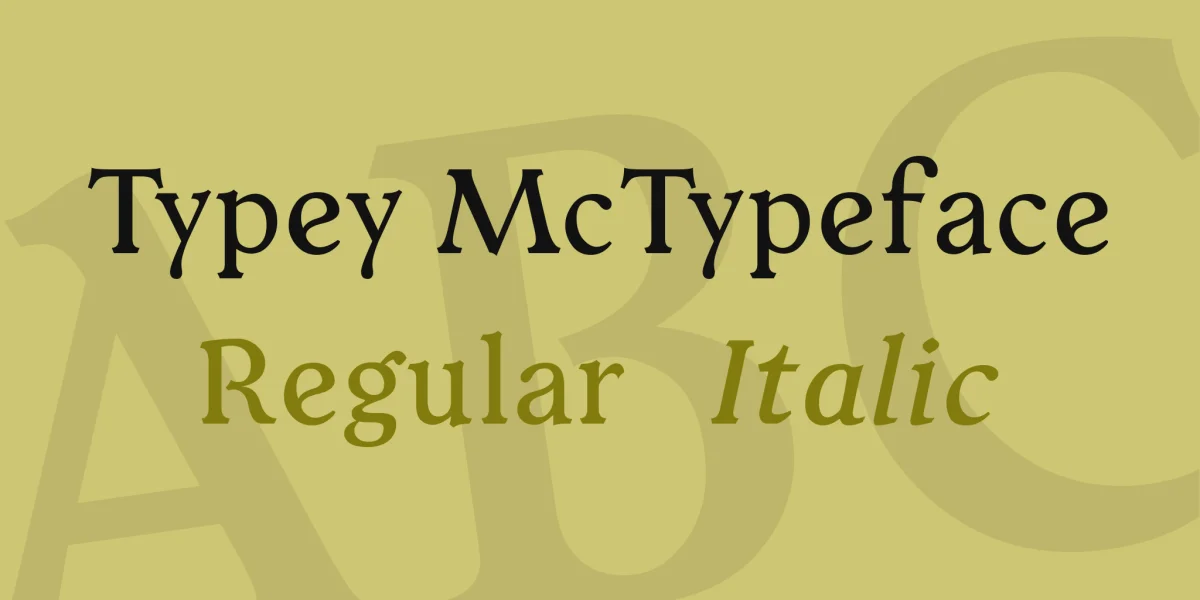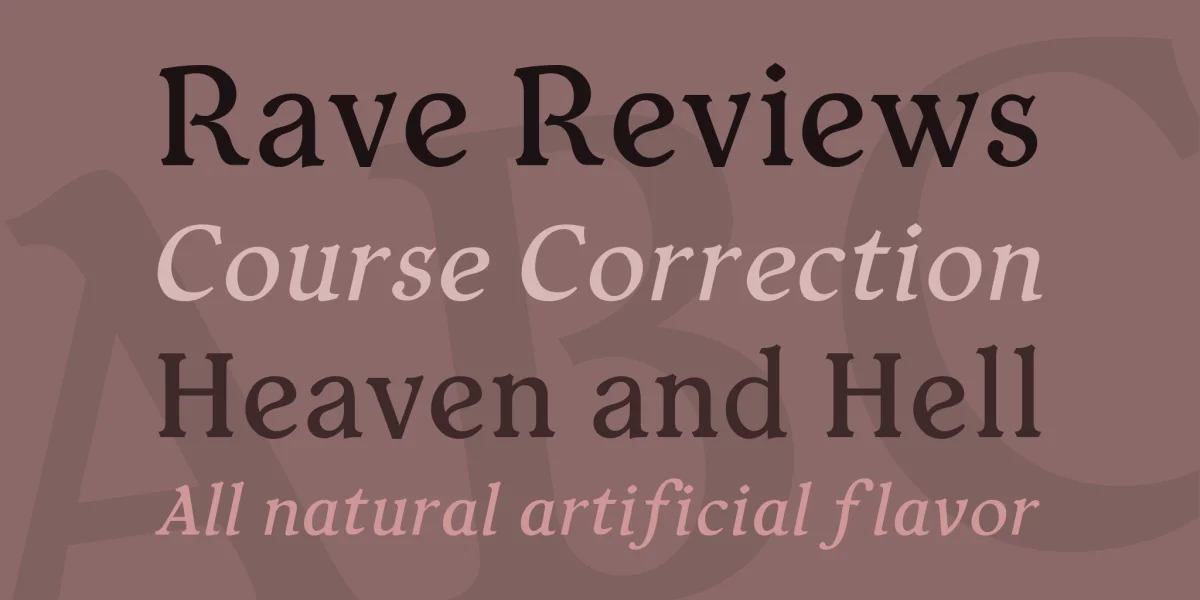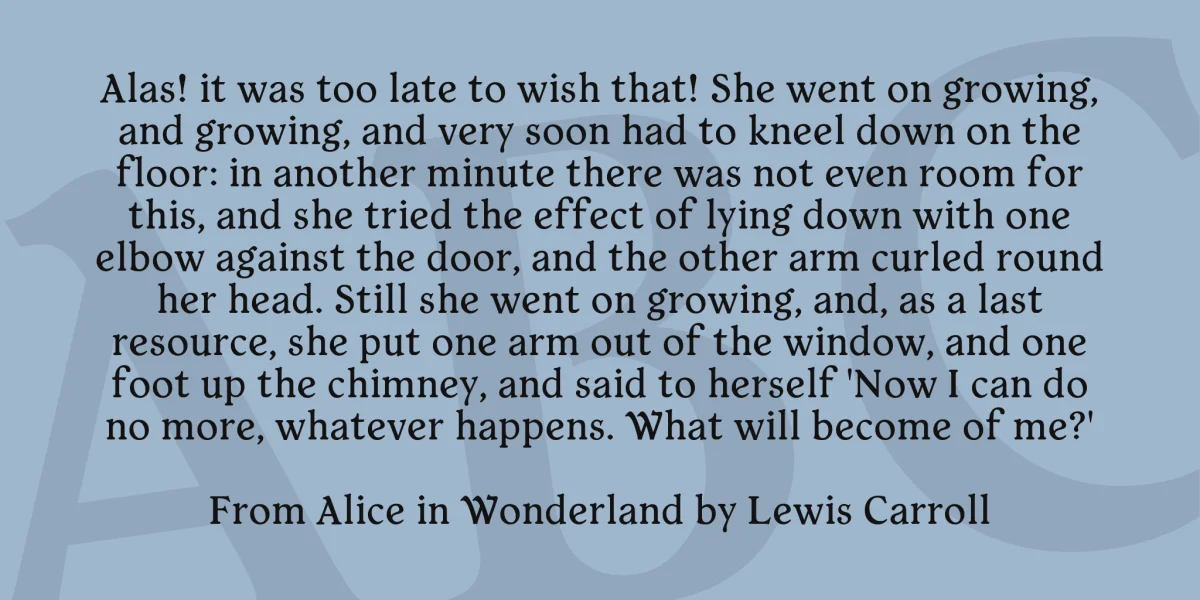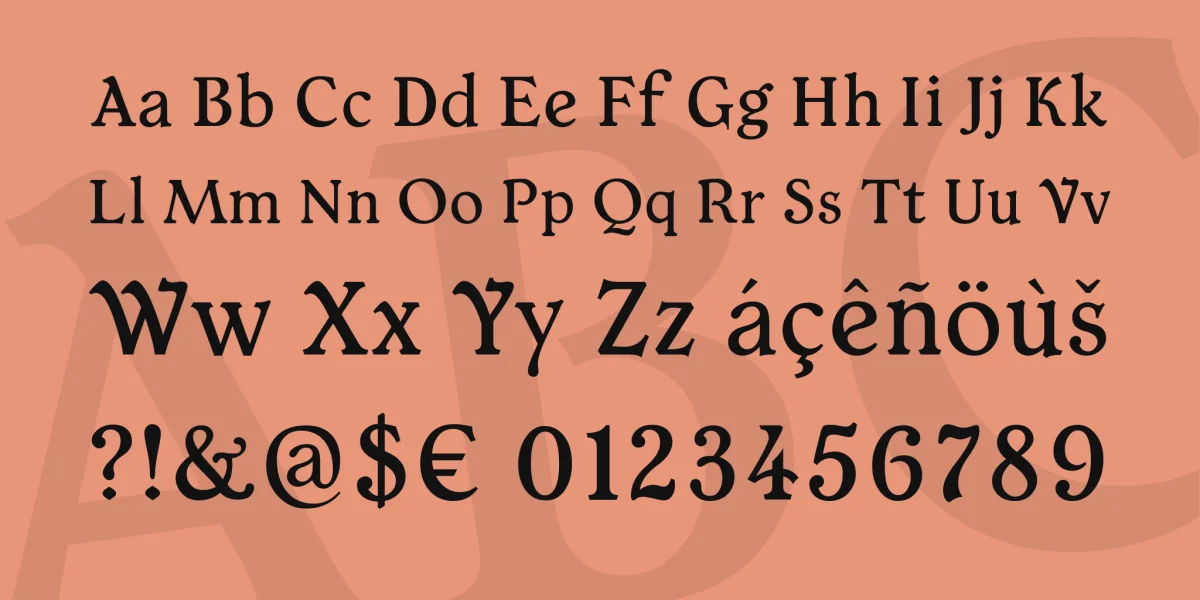
Well I was going to call it 'Fred' to celebrate the contribution of Frederic W. Goudy to typography but instead I put up poll on my website to decide on the name and of the three votes cast the name 'Typey McTypeface' won by an overwhelming two thirds majority!
Who am I to go against such a clear and decisive mandate by the general public. But I'm sure you are aware by now that the above paragraphs have their tongue firmly in their cheek.
If you don't know what I'm on about then fire up your favourite web browser and go to your favourite search engine and do a search for 'Boaty McBoatface', enjoy!
Updated Typey McTypeface. Made some changes to the lower case p (both upright and italic) to correct a fault, also re-designed the lower case italic z. Also re did the bearings to make the overall appearance more evenly spaced.